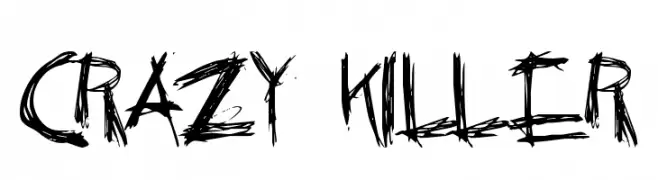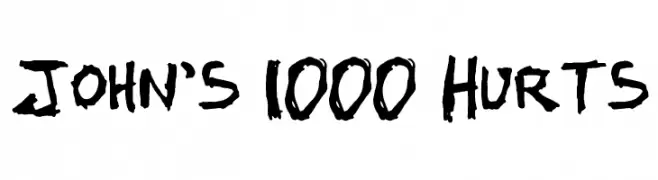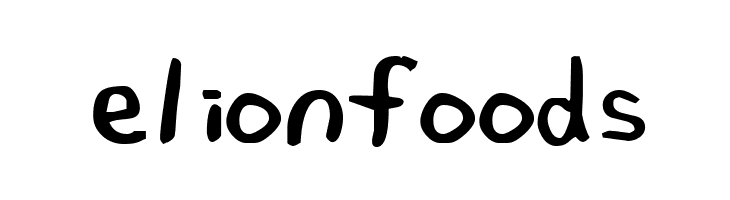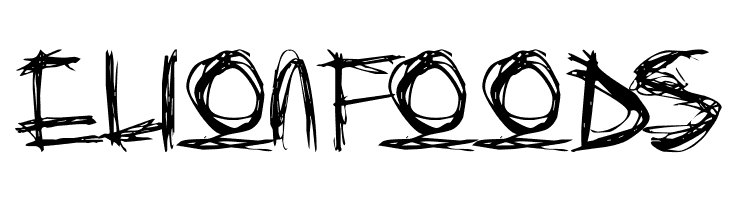
Bold, stencil-like font with a rugged, distressed appearance.
A distressed, grungy font with jagged edges and irregular strokes.
A bold, rugged font with thick, irregular strokes and a distressed appearance.
A chaotic, hand-drawn font with jagged strokes and an intense, edgy style.
A playful, handwritten font with bold, rounded characters and a whimsical style.